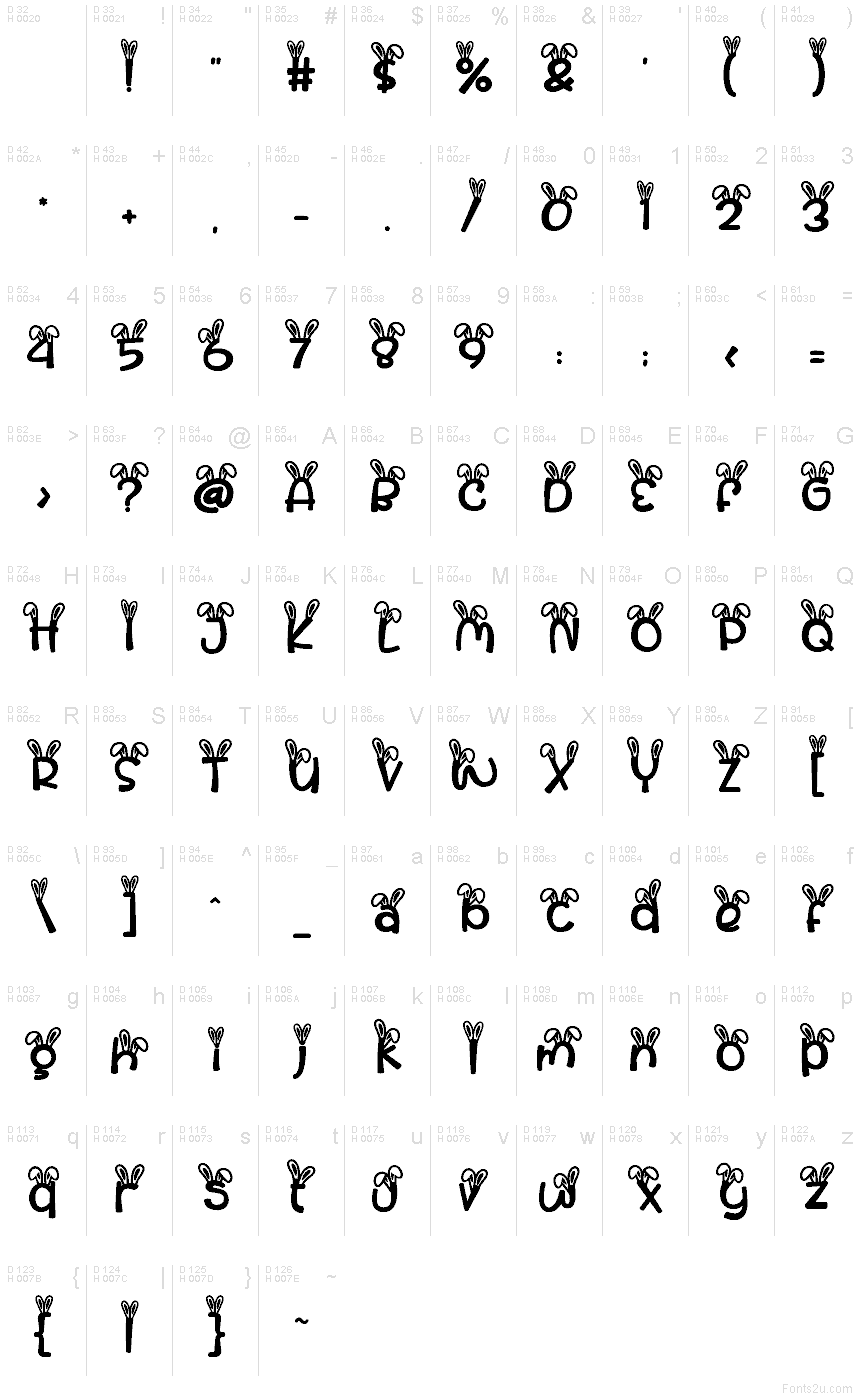
Pastel Palooza Bunny Ear
Pastel Palooza Bunny Ear font by PutraCetol Studio is a holiday-themed typeface brimming with whimsical and playful artistic flair. Its decorative style with unique embellishments and thematic elements captures an enchanting Easter spirit. Each letter, shaped to mimic the iconic bunny ears, contributes to a nostalgic fairyland atmosphere.
Free yet impressive, this font enhances digital or print cards, flyers, posters, invitations, artistic designs, branding projects, merchandising, blogs and social media pages. Its decorative effect also works wonders in book covers as well as product labels including packaging design concepts.